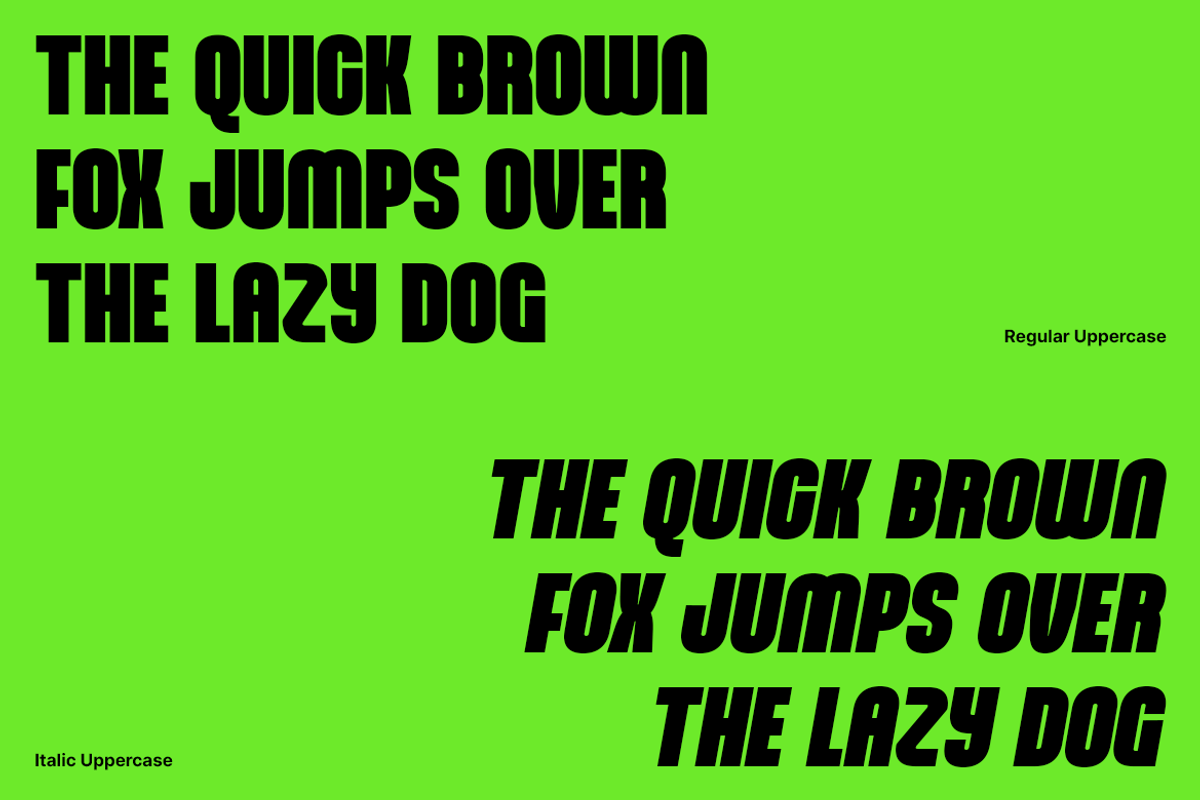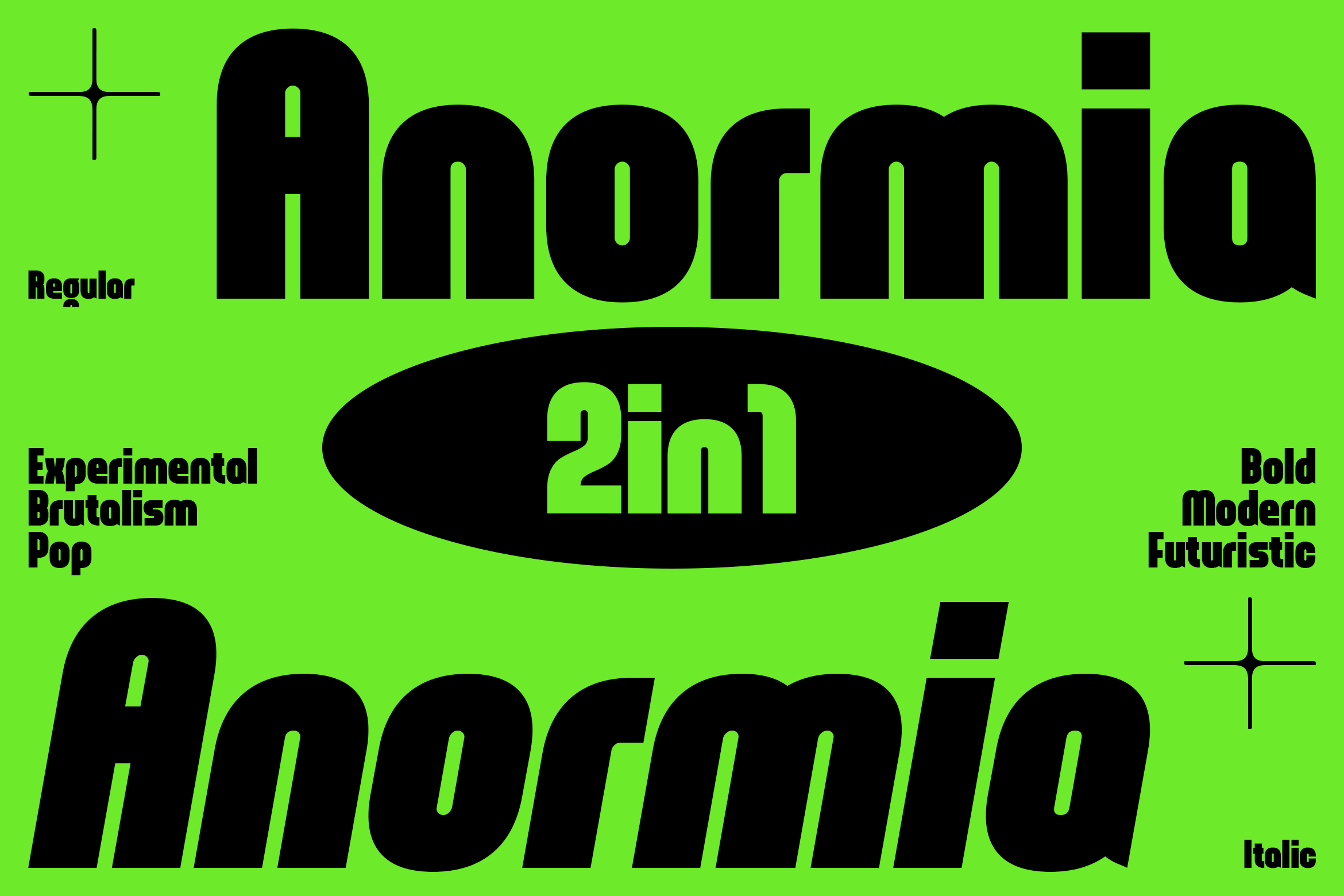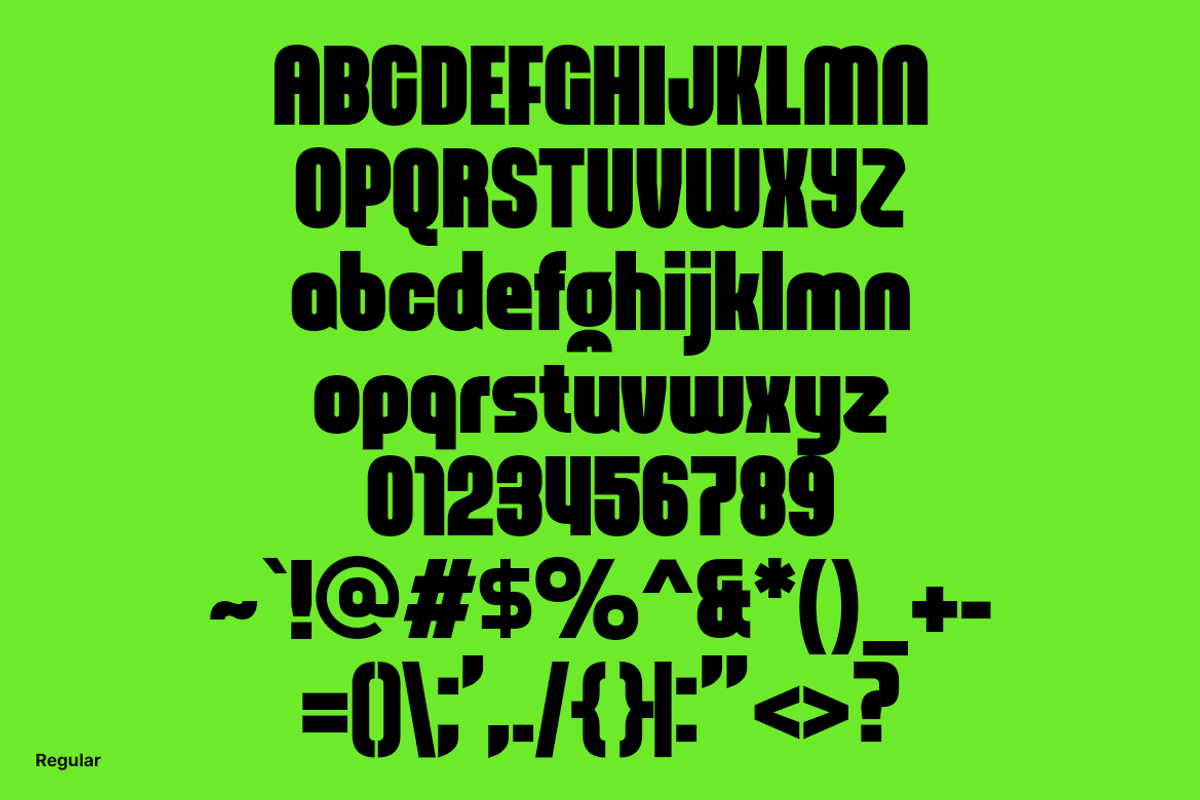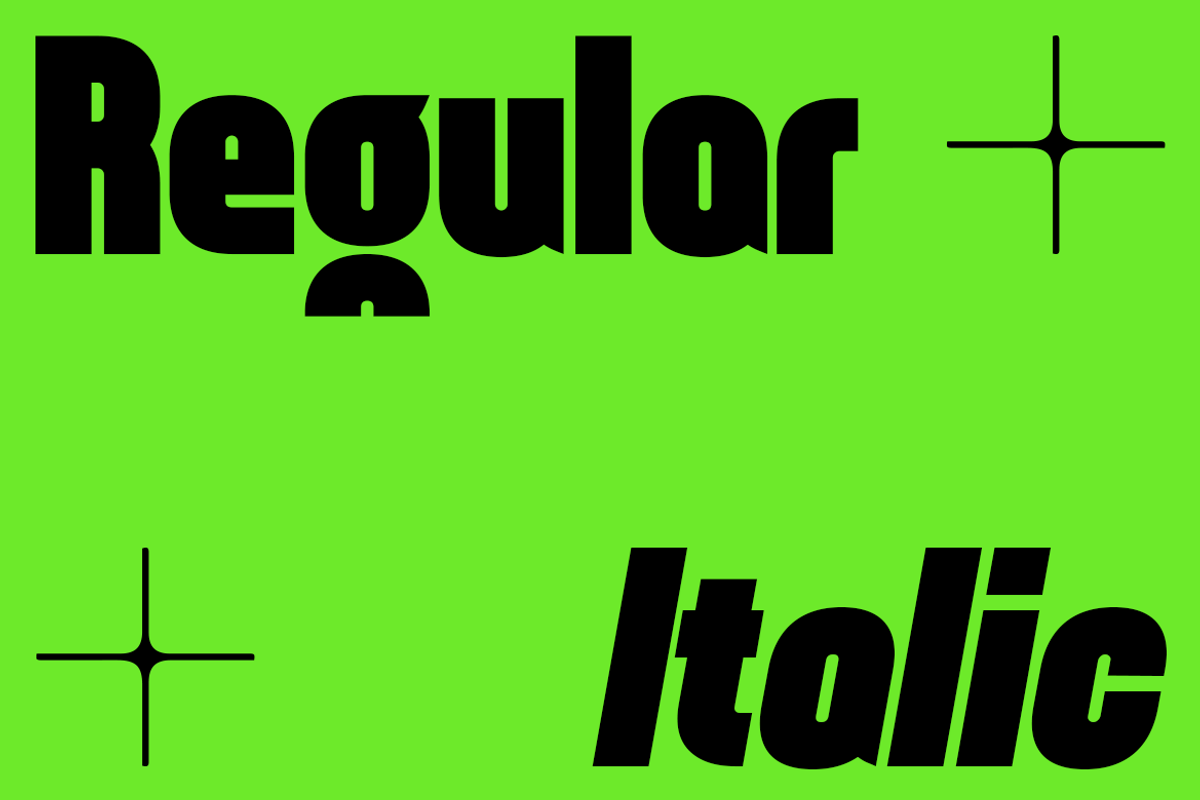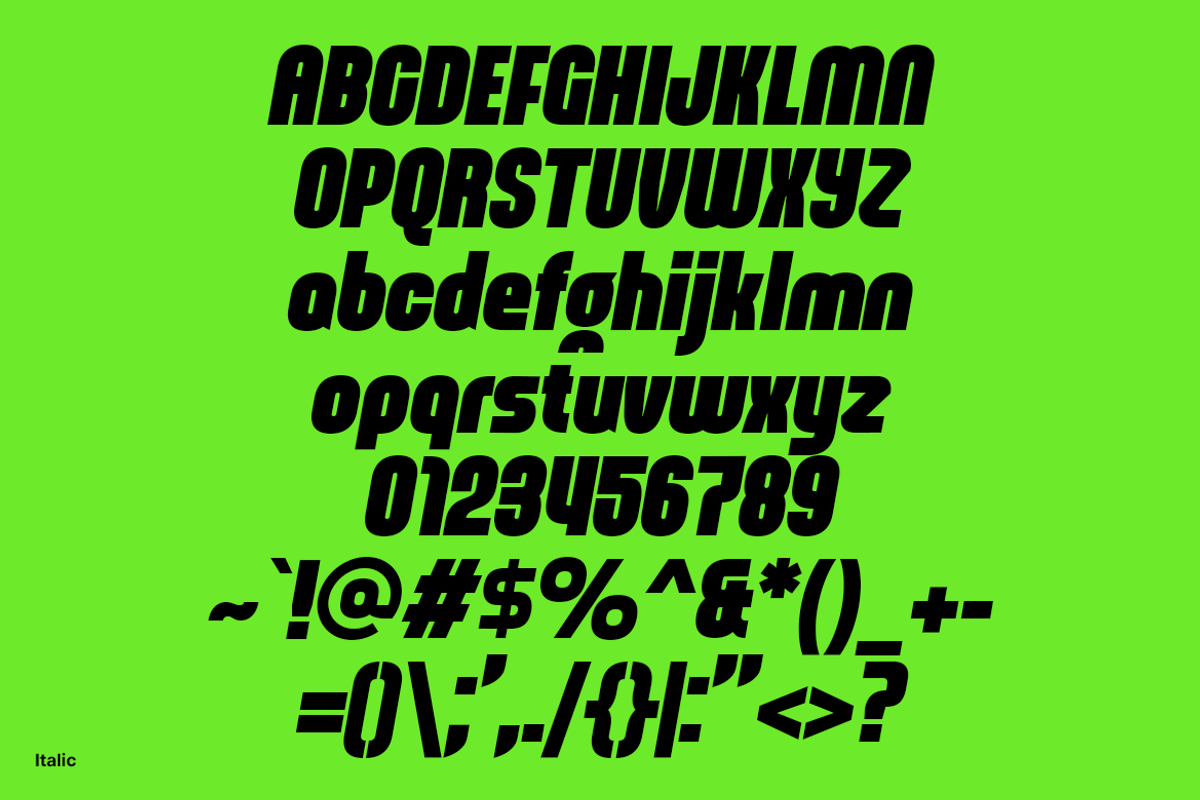
Anormia - Bold Urban Fonts
Dive into the bold, the vibrant, and the undeniably modern with Anormia – the ultimate urban pop font that commands attention and sets trends.
Inspired by contemporary visual poster aesthetics and graphic design trends, Anormia combines the raw edge of urban pop brutalism with sleek modernity. Its striking, bold presence is designed to make a statement, whether it’s on posters, logos, or the latest fashion piece.
Choose Your Vibe: Regular or Italic.
Regular: Perfect for making powerful, unyielding statements with a sharp, clean look.
Italic: Adds a dynamic, forward-leaning flair that brings energy and movement to any design.
Anormia is ideal for:
- Posters: Make your announcements pop with a font that grabs attention.
- Logos: Create a brand identity that’s unforgettable and full of personality.
- Branding: Give your business a fresh, urban edge that speaks to today’s trends.
- Fashion: Make your clothing line pop with typography that’s as stylish as it is modern.
- Music & Albums: Set the tone with album art that’s as vibrant and energetic as your sound.